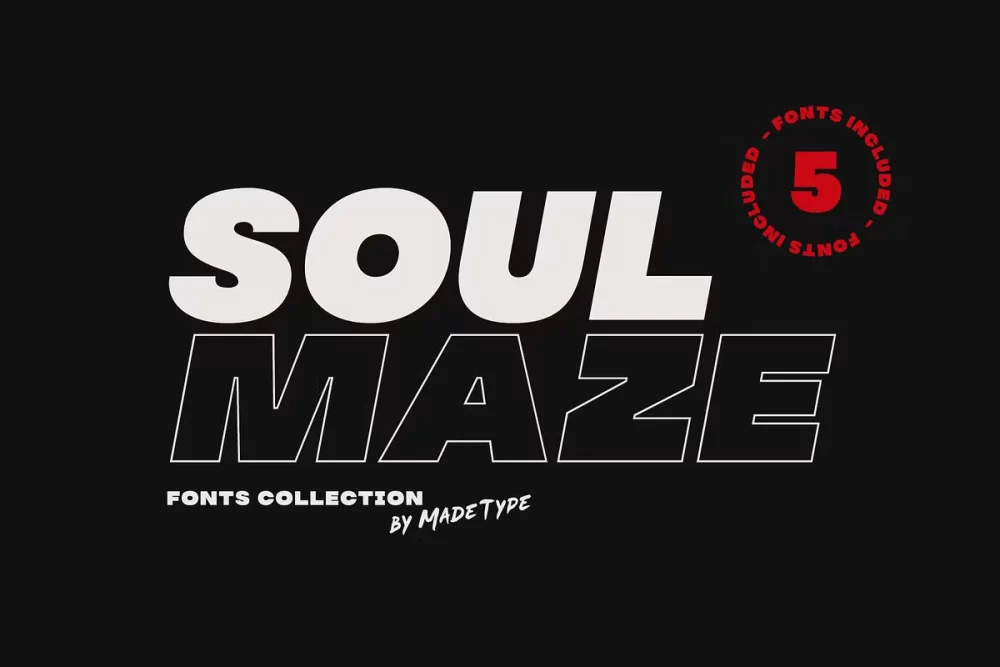
Made Soulmaze Font
Made Soulmaze is a display fonts collection. The Soulmaze will perfect for many project: fashion, magazines, logo, branding, photography, quotes, blog header, poster, advertisements, etc.
• Uppercase & alternate uppercase letters, numbers, punctuation
• Multilingual support